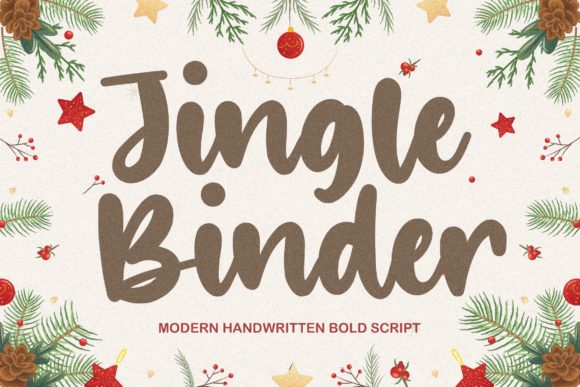
Jingle Binder Font: Elevate Your Designs with Elegance
Jingle Binder is a beautiful, flowing handwritten font that has captured the hearts of designers and artists alike. Its elegant touch and distinct style make it perfect for a wide range of projects, from creative branding and advertising to personal stationery and digital content. In this article, we’ll dive into the world of Jingle Binder Font, exploring its unique features, usage ideas, and the benefits it can bring to your designs.
What Makes Jingle Binder Font Special?
Jingle Binder Font is described by its incredibly distinct and timeless style. The font’s elegant touch sets it apart from other handwritten fonts, making it a standout choice for designers looking to add a touch of sophistication to their work. Here are some key features that make Jingle Binder Font special:
- Flowing Handwritten Style: Jingle Binder Font boasts a beautiful, flowing script that mimics the natural movement of handwriting. Its fluid strokes and connections create a sense of elegance and refinement.
- Elegant Touch: The font’s elegant touch is evident in its refined lines, subtle curves, and precise letter spacing. This makes it perfect for designs that require a high level of sophistication.
- Distinct and Timeless Style: Jingle Binder Font’s unique style is both modern and timeless. Its classic appeal ensures that it won’t go out of fashion anytime soon, making it a great investment for designers and businesses.
10 Creative Ways to Use Jingle Binder Font
Jingle Binder Font is versatile and can be used in a variety of projects. Here are some creative ways to incorporate this beautiful font into your designs:
- Branding and Logo Design: Use Jingle Binder Font to create a unique and memorable brand identity. Its elegant style makes it perfect for luxury brands, fashion labels, and high-end businesses.
- Wedding and Event Stationery: Add a touch of sophistication to your wedding or event stationery with Jingle Binder Font. It’s perfect for invitations, save-the-date cards, and thank-you notes.
- Digital Content: Use Jingle Binder Font to create engaging digital content, such as blog posts, social media graphics, and email newsletters.
- Packaging Design: Elevate your packaging design with Jingle Binder Font. Its elegant style makes it perfect for product labels, packaging inserts, and instruction manuals.
- Advertising and Marketing: Use Jingle Binder Font to create eye-catching advertisements and marketing materials. Its unique style will help your brand stand out from the competition.
- Personal Stationery: Add a touch of elegance to your personal stationery with Jingle Binder Font. It’s perfect for journals, planners, and greeting cards.
- Web Design: Use Jingle Binder Font to create a beautiful and elegant website. Its flowing style makes it perfect for headings, titles, and navigation menus.
- Signage and Displays: Use Jingle Binder Font to create eye-catching signage and displays. Its elegant style makes it perfect for storefronts, exhibitions, and events.
- Book and Magazine Design: Add a touch of sophistication to your book or magazine design with Jingle Binder Font. It’s perfect for titles, headings, and article text.
- Gift Tags and Wrapping: Use Jingle Binder Font to create beautiful gift tags and wrapping paper. Its elegant style makes it perfect for special occasions.
The Benefits of Using Jingle Binder Font
Jingle Binder Font offers a range of benefits that make it a great choice for designers and businesses. Here are some of the advantages of using this beautiful font:
- Unique and Memorable: Jingle Binder Font’s unique style makes it easy to create memorable and recognizable designs.
- Elegant and Sophisticated: The font’s elegant touch adds a level of sophistication to any design, making it perfect for high-end brands and luxury businesses.
- Versatile: Jingle Binder Font is versatile and can be used in a wide range of projects, from digital content to packaging design.
- Timeless: The font’s classic appeal ensures that it won’t go out of fashion anytime soon, making it a great investment for designers and businesses.
- Easy to Read: Jingle Binder Font is easy to read, even in small sizes, making it perfect for body text and captions.
Tips and Tricks for Using Jingle Binder Font
Here are some tips and tricks for getting the most out of Jingle Binder Font:
- Use it Sparingly: Use Jingle Binder Font sparingly to create emphasis and add elegance to your designs.
- Experiment with Colors: Experiment with different colors to find the perfect match for your design.
- Pair it with Other Fonts: Pair Jingle Binder Font with other fonts to create a unique and interesting contrast.
- Adjust the Tracking: Adjust the tracking to create a more elegant and refined look.
- Use it for Headings: Use Jingle Binder Font for headings and titles to create a beautiful and elegant design.
Jingle Binder Font is a beautiful and elegant handwritten font that can elevate your designs to the next level. Its unique style, elegant touch, and timeless appeal make it perfect for a wide range of projects. With its versatility, ease of use, and range of benefits, Jingle Binder Font is a great choice for designers and businesses looking to create stunning designs. So why not give it a try and see the difference it can make?